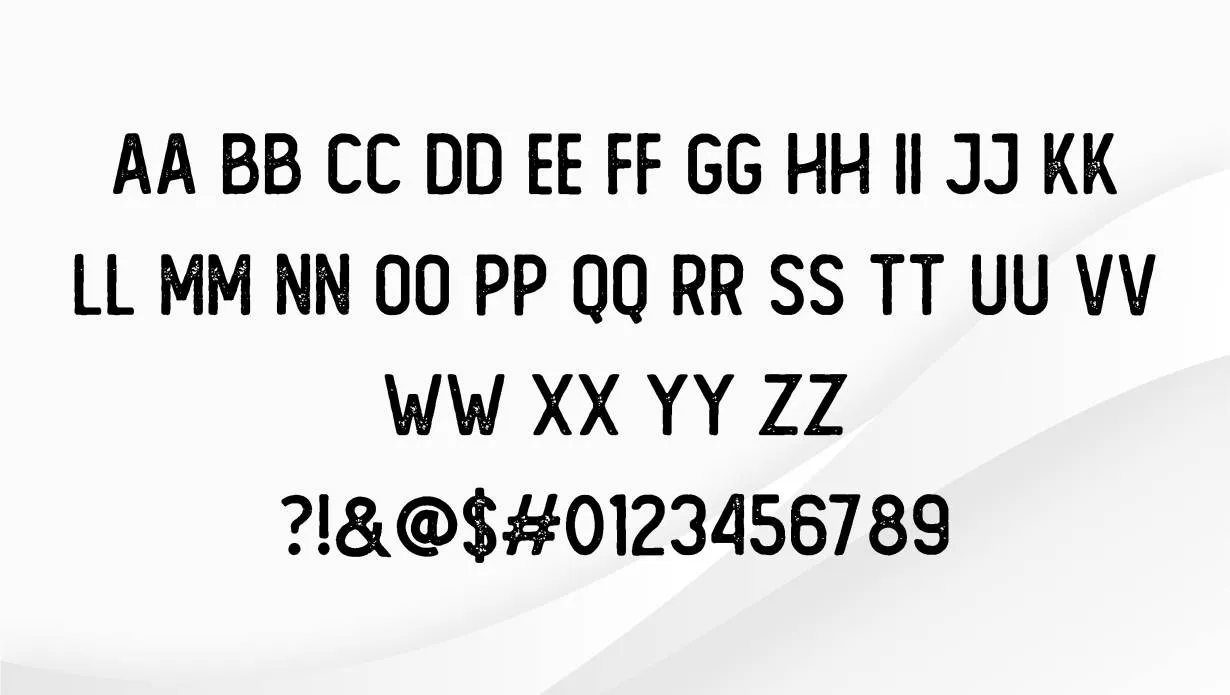
The Foregen Vintage Font takes you on a journey back in time with its rustic and weathered appearance.
This typeface evokes a sense of nostalgia, making it perfect for retro designs, antique store signage, or vintage-themed branding.
| Name | The Foregen Vintage Font |
| Designer | Vultype Co |
If you’re looking to add a touch of history and authenticity to your work, The Foregen Vintage Font is a fantastic choice.